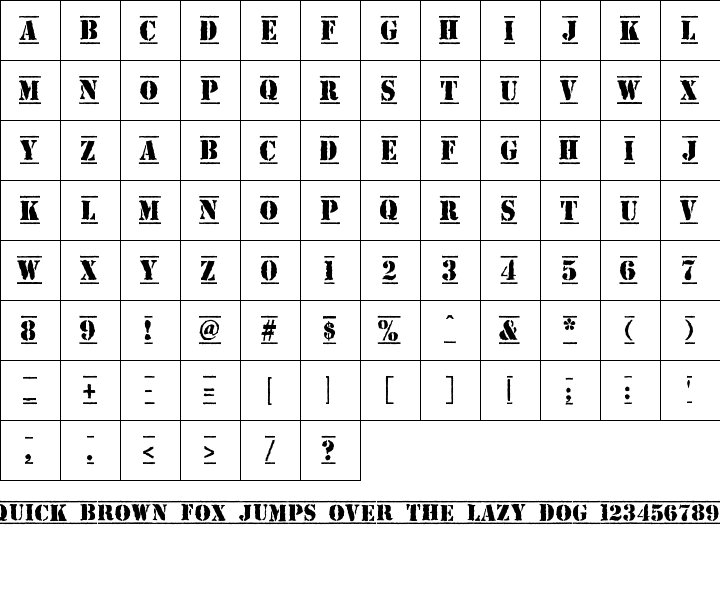
If you’re looking to create a document that looks top secret, the Top Secret Font is perfect for you. You can use it for headings, quotes, or even as a background image. This guide will show you how to use the Top Secret typeface in different ways.
Top Secret typeface is a fun and unique font that can be used for various purposes. Whether you’re looking to add some personality to your website or want to create a document that looks top-secret, this font is perfect for you.
The Top Secret typeface is a great way to add some personality to your website. You can use it for headings, quotes, or even as a background image. If you want to add a bit of mystery to your site, this is the perfect font for you.
Top Secret typeface is available in different styles and weights, so you can find the perfect one for your project. The most popular styles are regular and bold, but there are also light and italic versions. No matter what style you choose, the Top Secret typeface is sure to add some personality to your project!
Top Secret typeface has a complete set of characters including uppercase and lowercase letters, numbers, and punctuation. This typeface looks like the royal kingdom font.
Designer of Top Secret Font
This funny and lovely typeface is designed by Hungary-based typeface designer Bálint Koczman for the foundry Magique Fonts in 2009.
This font style is designed with a unique and consistent style. This single attractive style is a mixture of various characteristics, containing upper- and lower-case letters, numbers, punctuations, symbols, special characters, glyphs, and multiple language support.
| Name | Top Secret Font |
| Style | Decorative |
| Designer | Bálint Koczman |
| Foundry | Magique Fonts |
Is Top Secret typefacegood for headings?
Yes, this typeface is good for the headings. It is also suitable for titles, product packaging, and invitation cards.
Is Top Secret typefaceScript font?
No, it is not a script typeface. It is a decorative typeface and belongs to the display family.
Is Top Secret typefacea good font?
Yes, it is a good typeface.